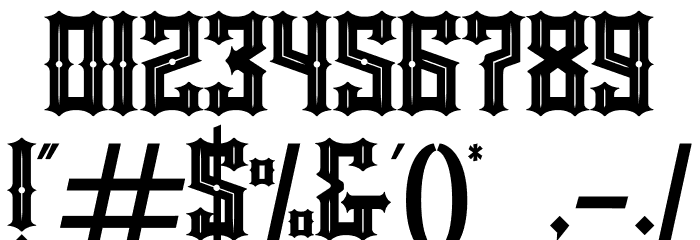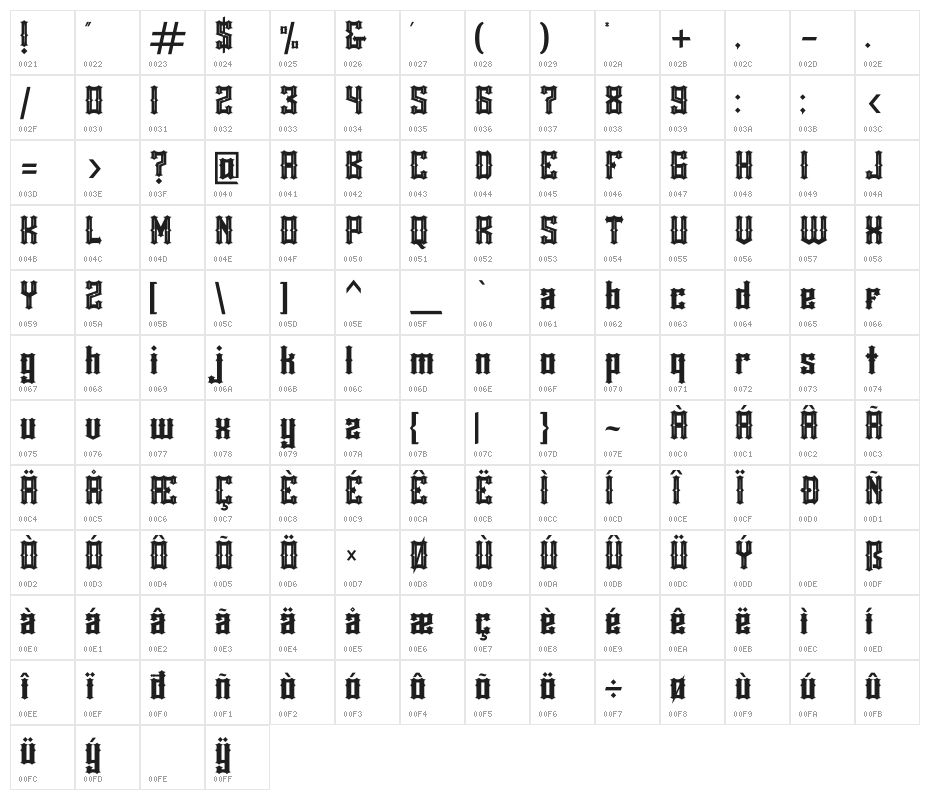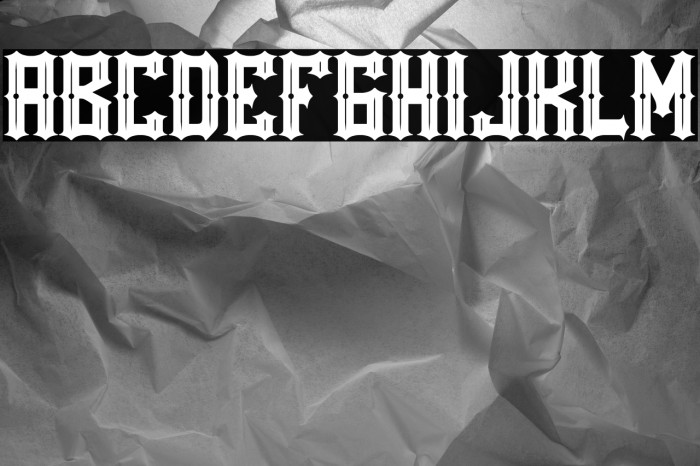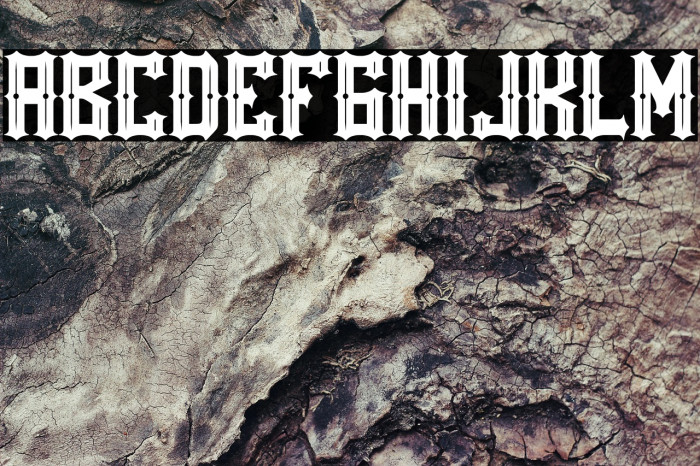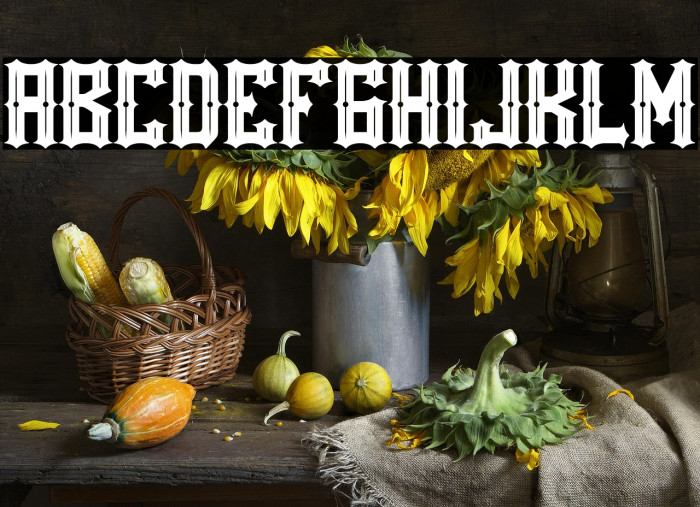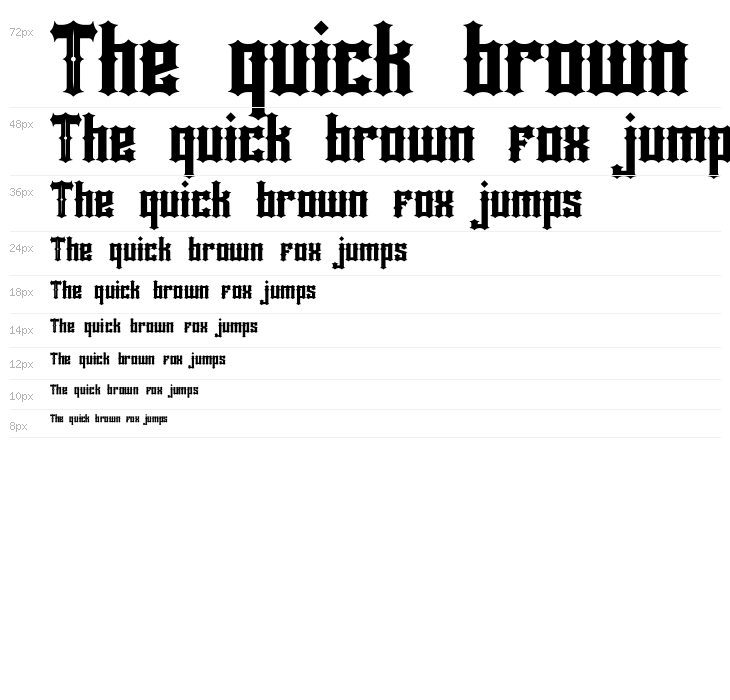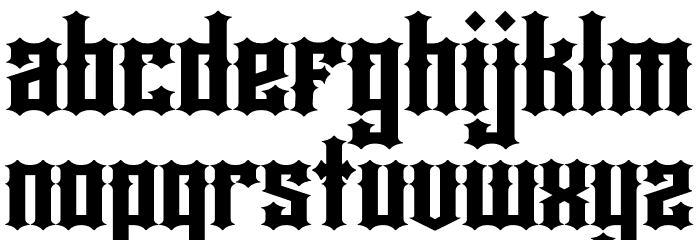
Rackles Font
Rackles Description
This font exudes a bold and dramatic presence, characterized by its intricate and angular design reminiscent of traditional blackletter styles. The letters are heavily stylized with sharp edges and pointed serifs, giving it a gothic and medieval feel. The uppercase and lowercase letters maintain a consistent style, with the uppercase being slightly more elaborate. The numerals and special characters follow the same ornate pattern, ensuring uniformity across all glyphs. This font is perfect for creating a strong visual impact, making it ideal for headlines, posters, and any design that requires a touch of historical elegance.
| Proposed Projects | Ideal for vintage-themed posters, gothic book covers, tattoo designs, and branding that requires a historical or medieval touch. |